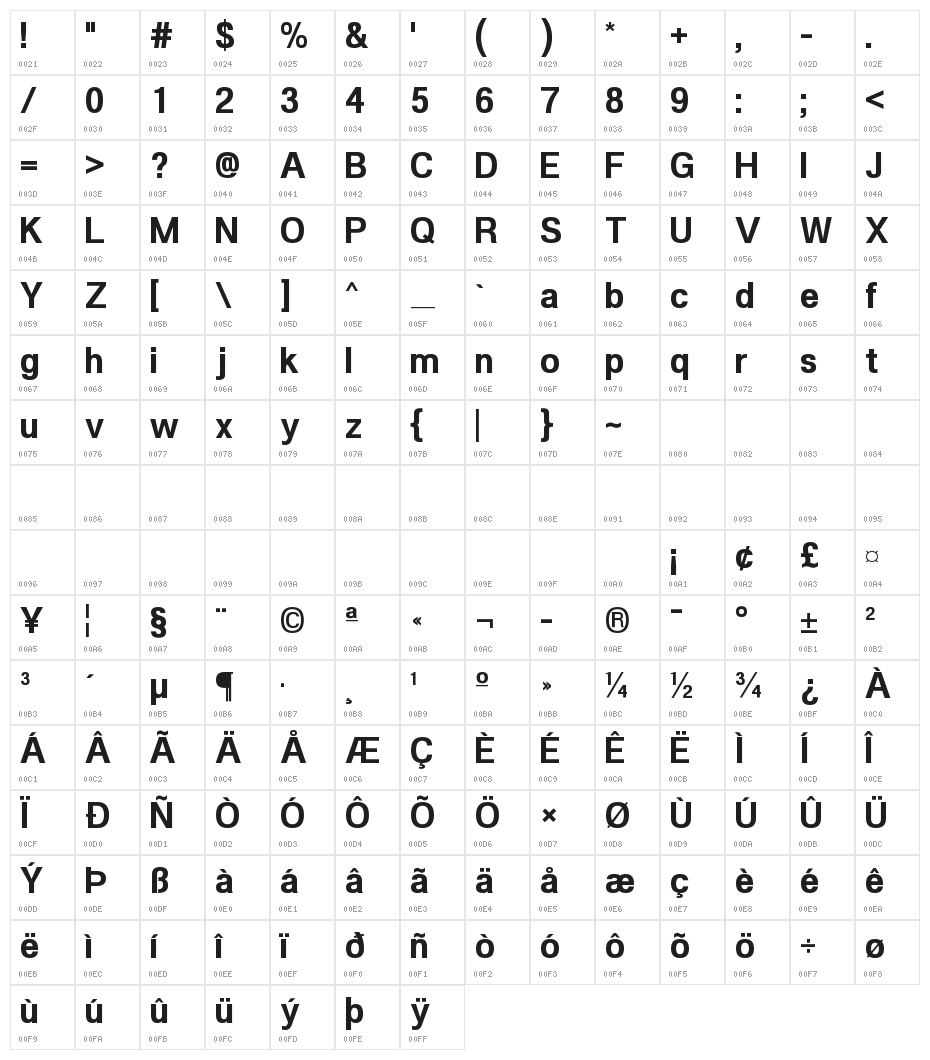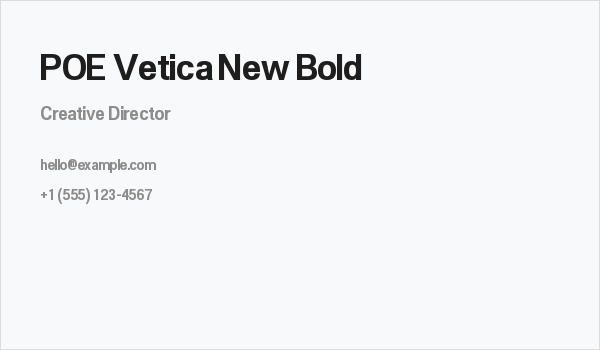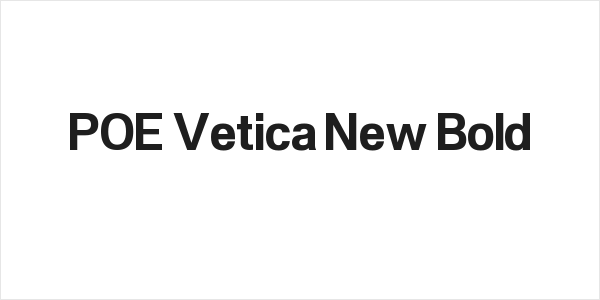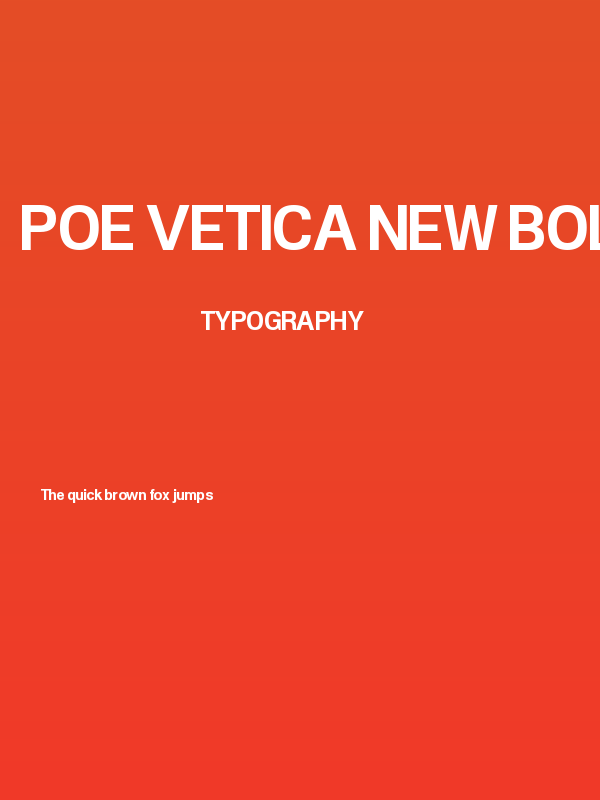
POE Vetica New Bold Font
POE Vetica New Bold Description
This font exhibits a bold and modern sans-serif style, characterized by clean lines and a strong presence. The uppercase and lowercase letters are well-proportioned, with consistent stroke widths that convey a sense of stability and professionalism. The numerals are clear and easily distinguishable, making them suitable for various applications. Special characters are included, maintaining the font's cohesive design. Its bold weight and straightforward design make it versatile for both digital and print media.
| Use Case | Headlines, Logos, Digital interfaces |
| Proposed Projects | Ideal for branding, advertising, headlines, and digital interfaces where clarity and impact are essential. |